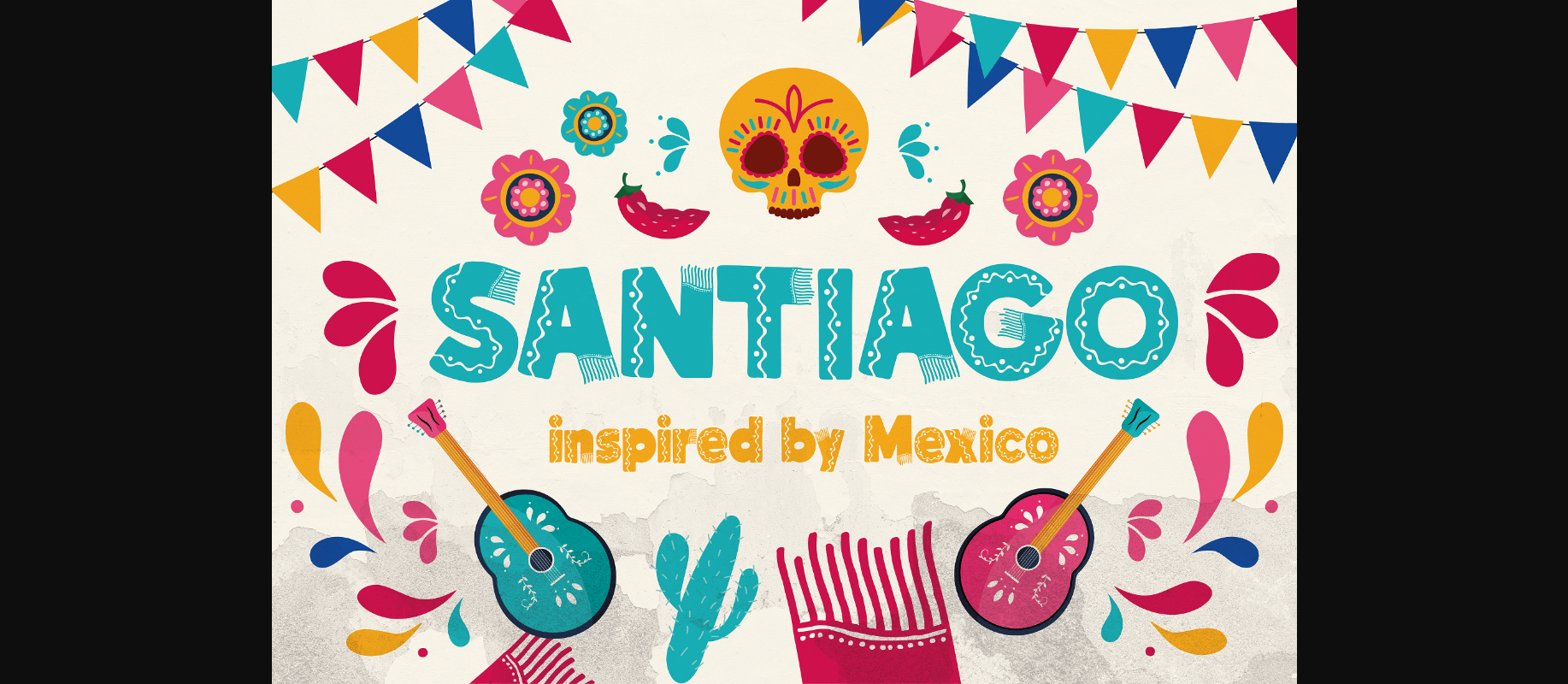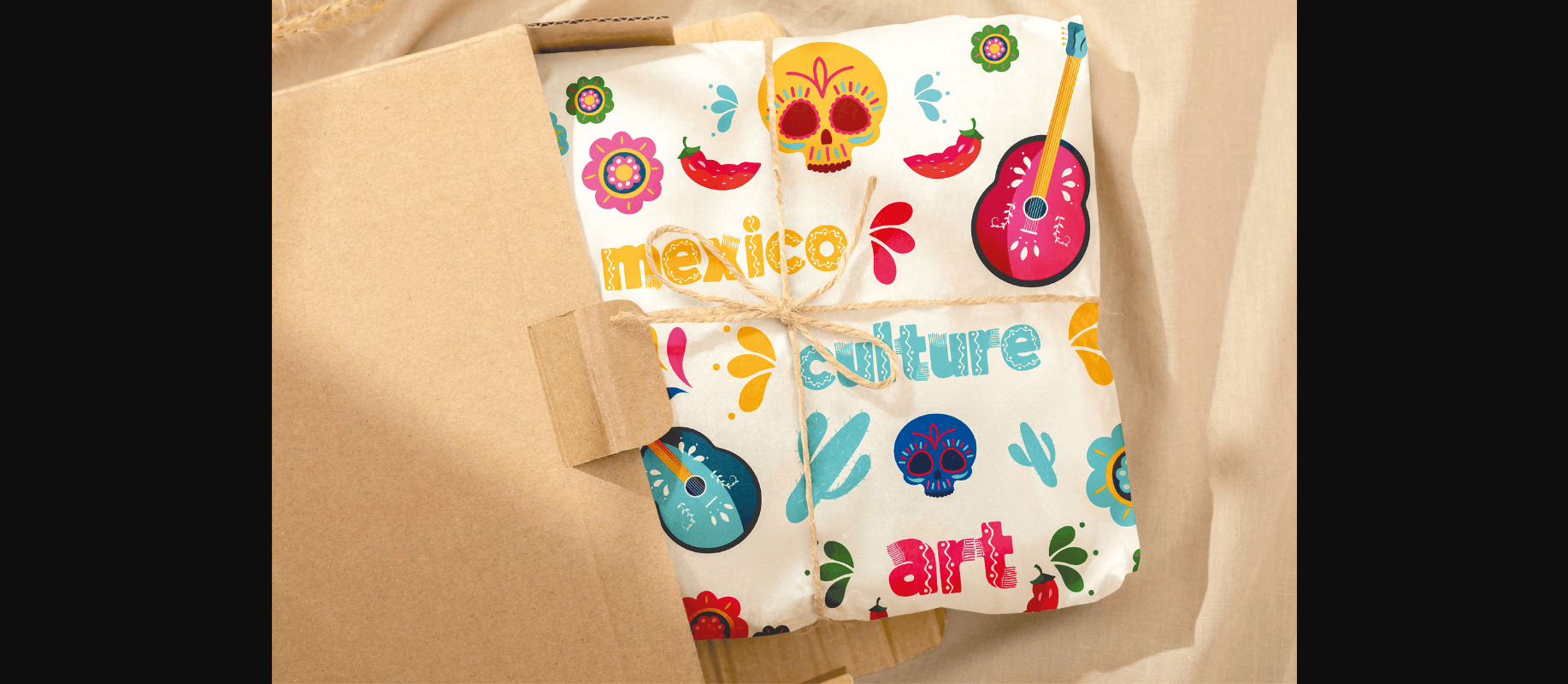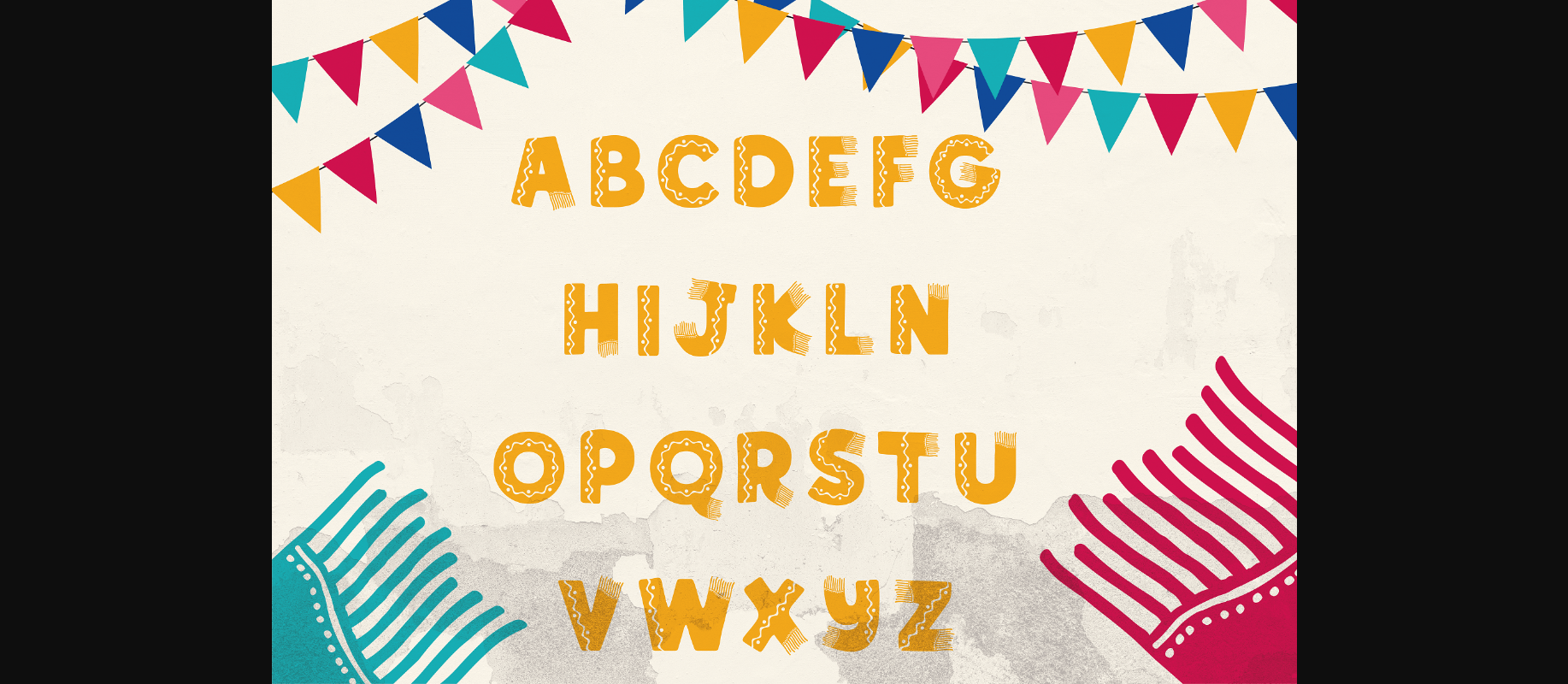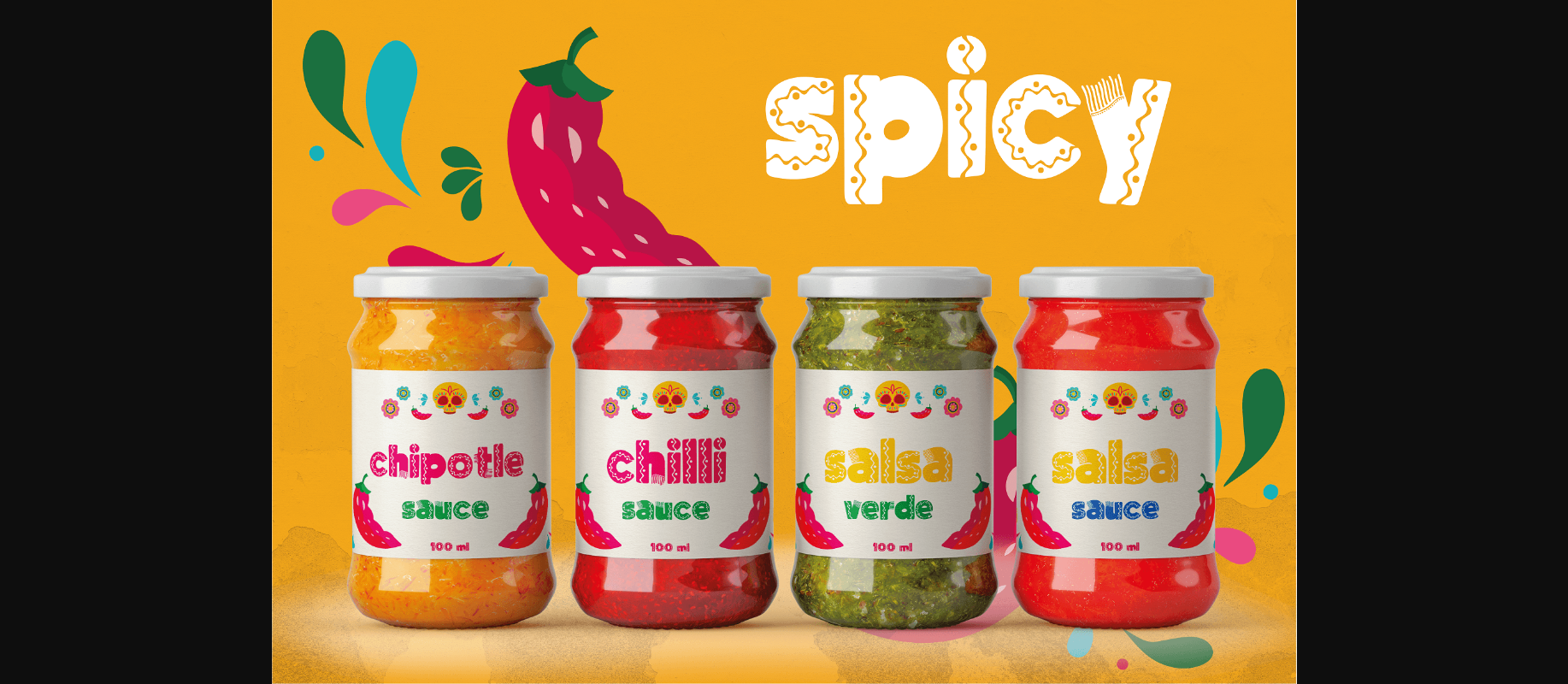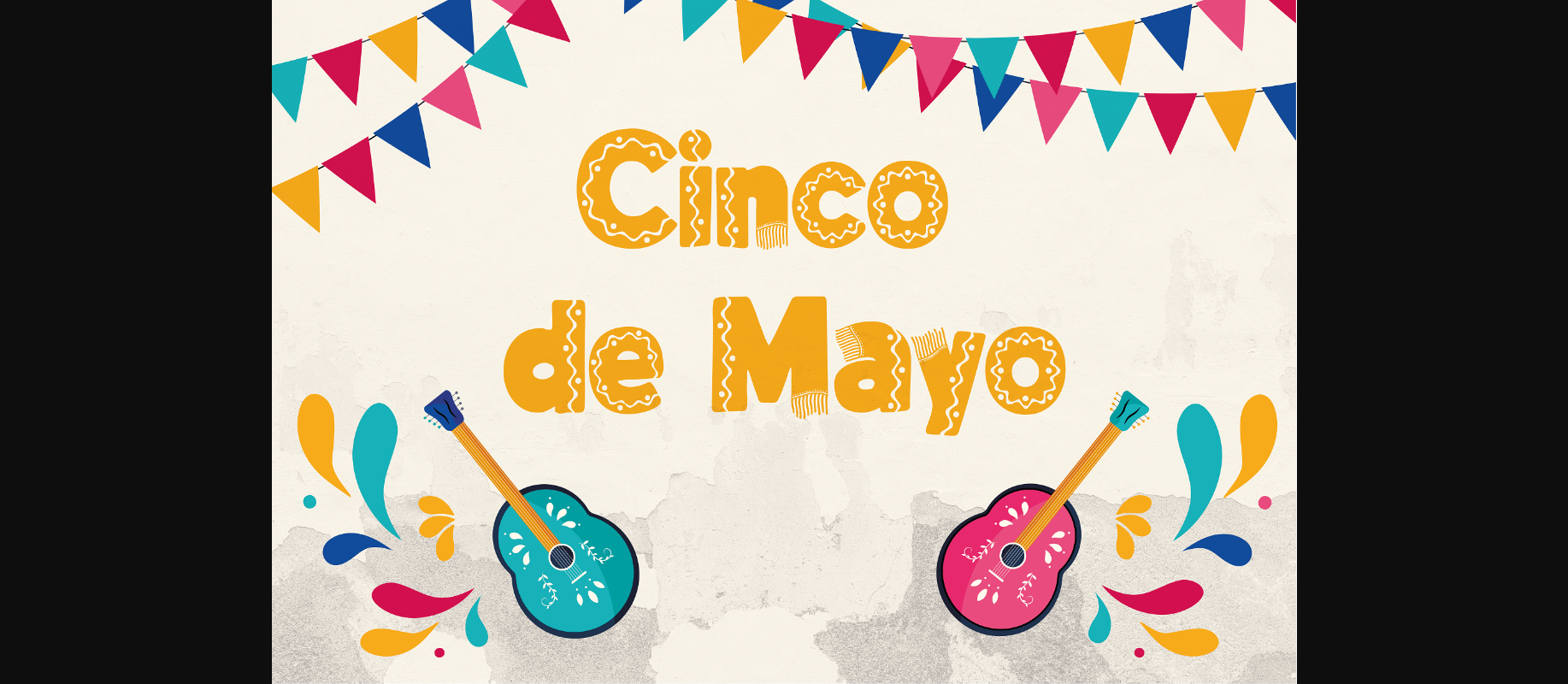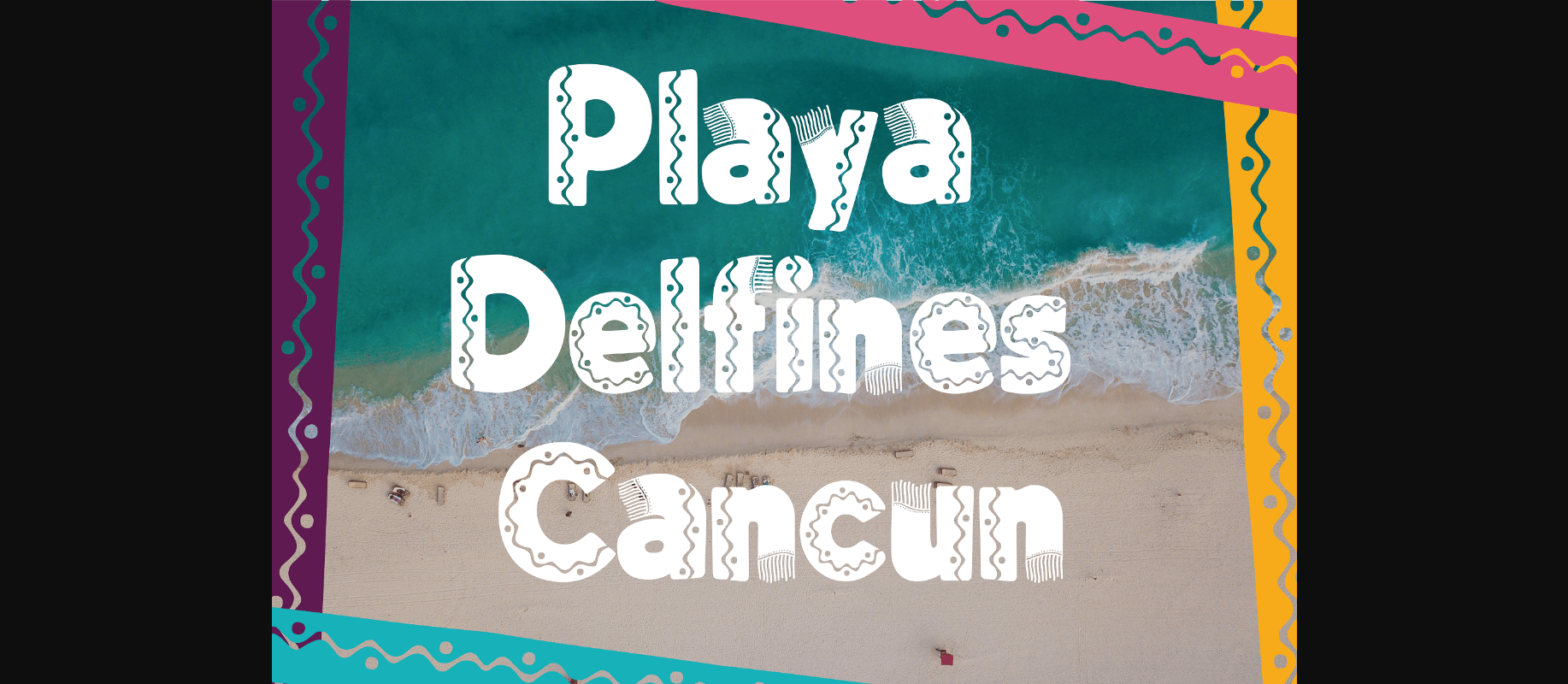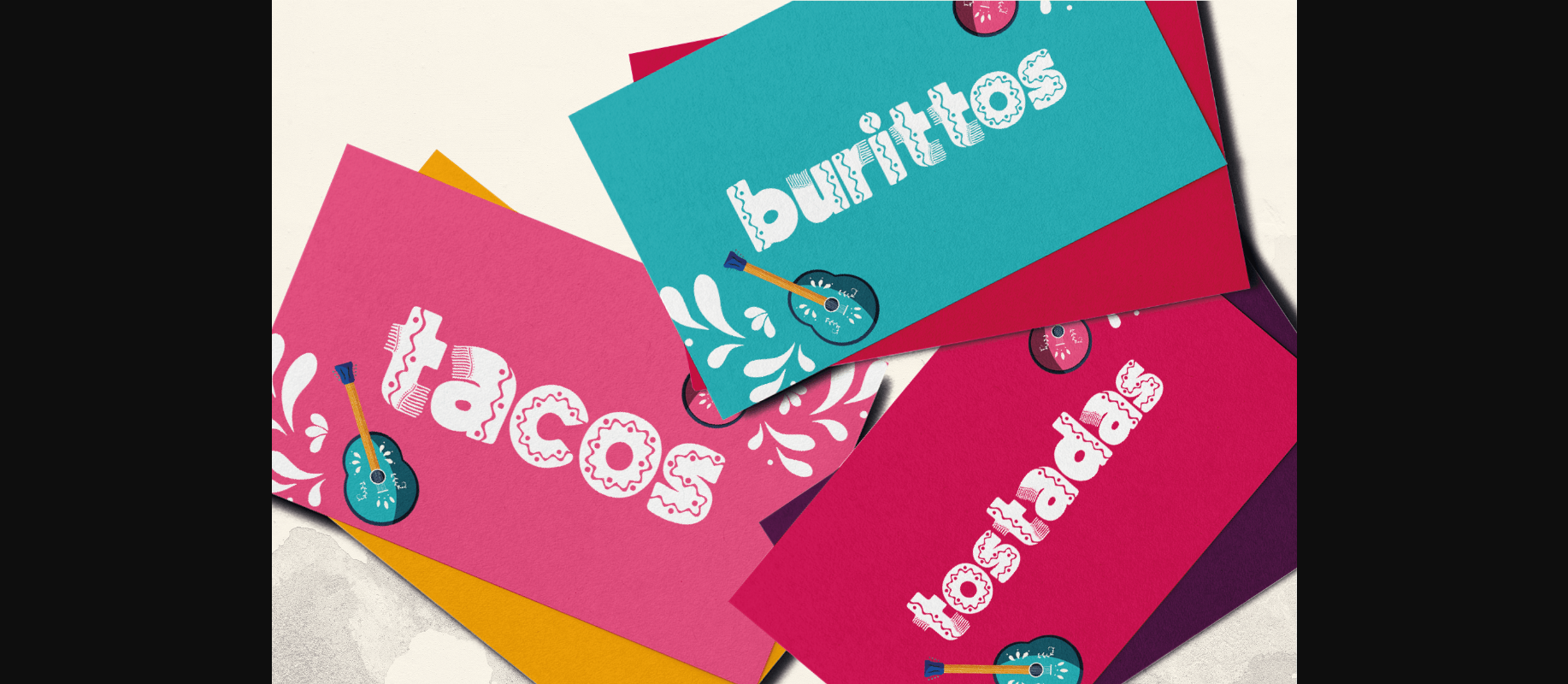
About Santiago Font
Santiago is a gorgeous handmade decorative typeface. You can use Santiago for Mexican-themed logos, restaurant menus, business cards, posters, flyers, invitations, greeting cards, advertising, apparel, magazines, etc. The possibilities are endless.
If you’re in need of a decorative Mexican culture typeface, then Santiago is for you!